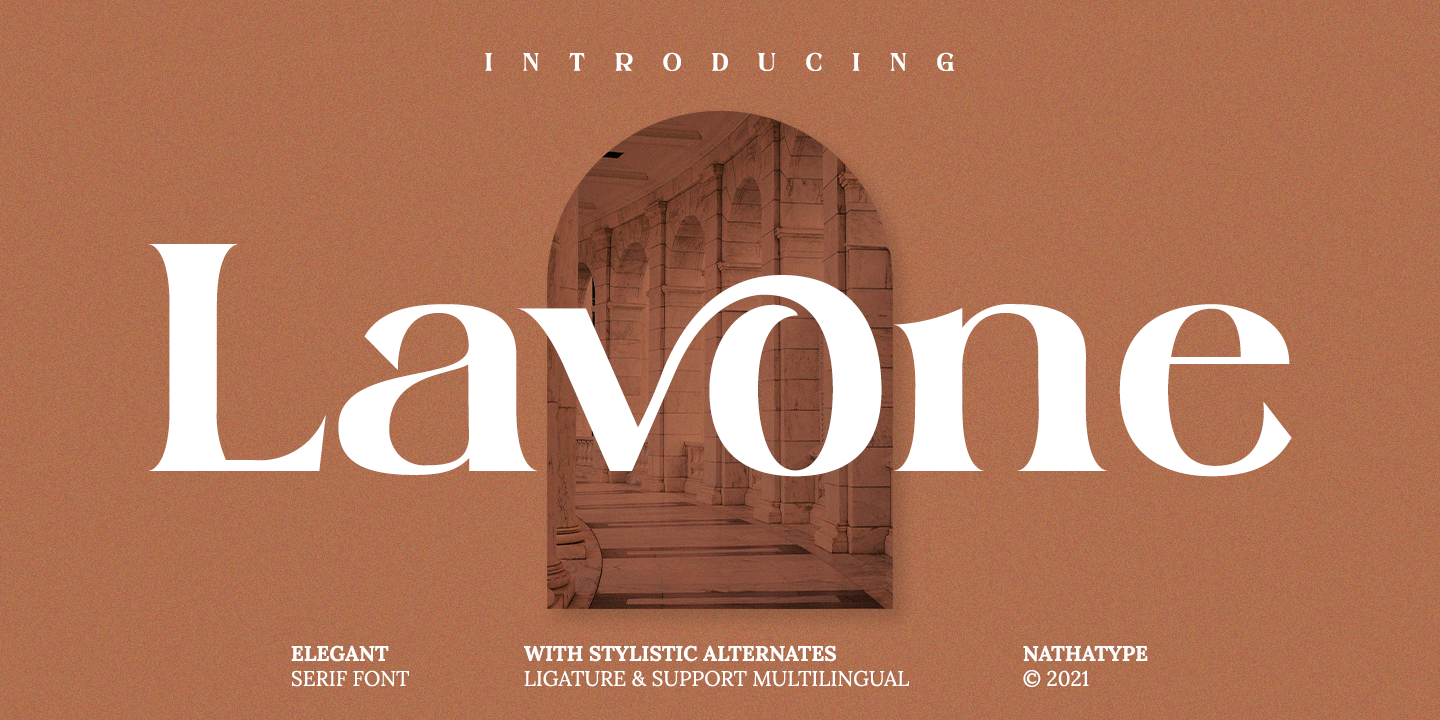
Add timeless elegance to your designs with Lavone Font Free Download. This refined serif typeface features delicate curves, high contrast strokes, and a luxurious, editorial feel—making it perfect for branding, wedding invitations, high-end packaging, fashion magazines, and sophisticated website headers. Lavone Font Free Download blends classic beauty with a modern touch, offering versatility for a wide range of premium projects.
The graceful structure of Lavone Font makes it ideal for both headlines and body text, adding a sense of prestige and professionalism to your layouts. Whether you're designing for a luxury brand, crafting promotional materials, or elevating your print designs, this font provides the perfect balance of style and readability.